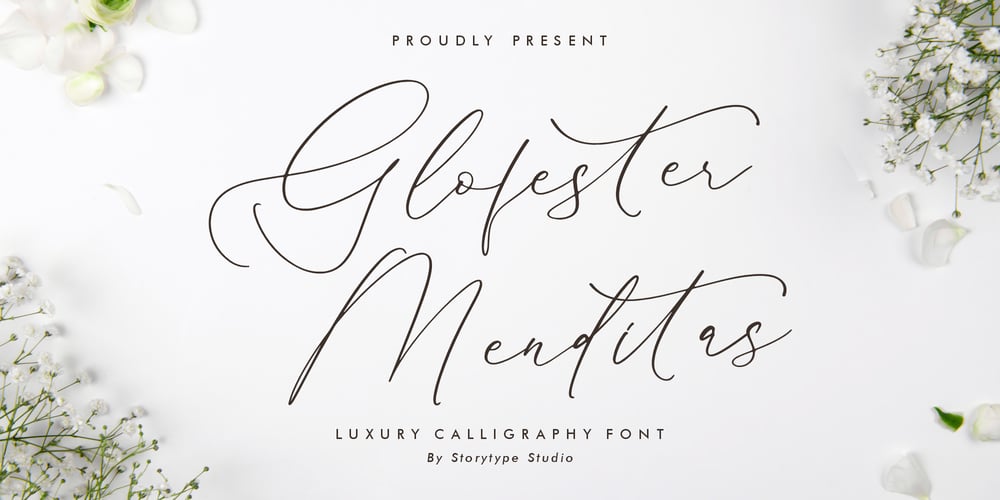
Glofester Menditas
Glofester Menditas font
Glofester Menditas Font Family was designed by Heru Utama Putra and published by Letterena Studios. Glofester Menditas contains 2 styles and family package options. This font feels equally charming and elegant. It looks stunning on wedding invitations, thank you cards, quotes, greeting cards, logos, business cards and every other design which needs a handwritten touch. It is also PUA encoded which means you can access all of the glyphs and swashes with ease!